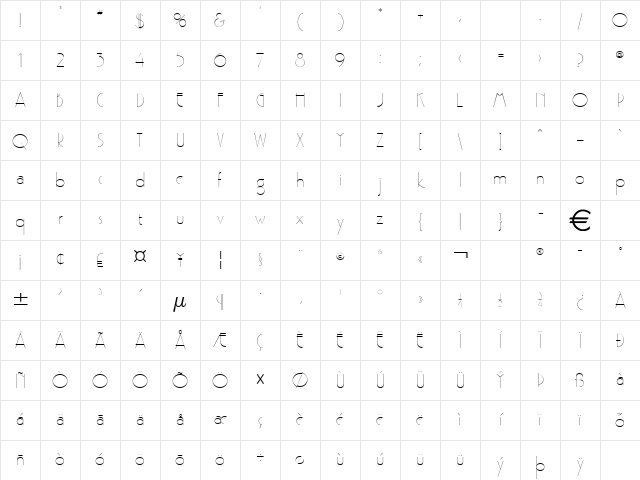
Complete Gaston Normal glyph index. Displaying only characters natively supported by Gaston Normal font.
Gaston is a composed and adaptable typeface that performs quietly and consistently across a wide range of design contexts.